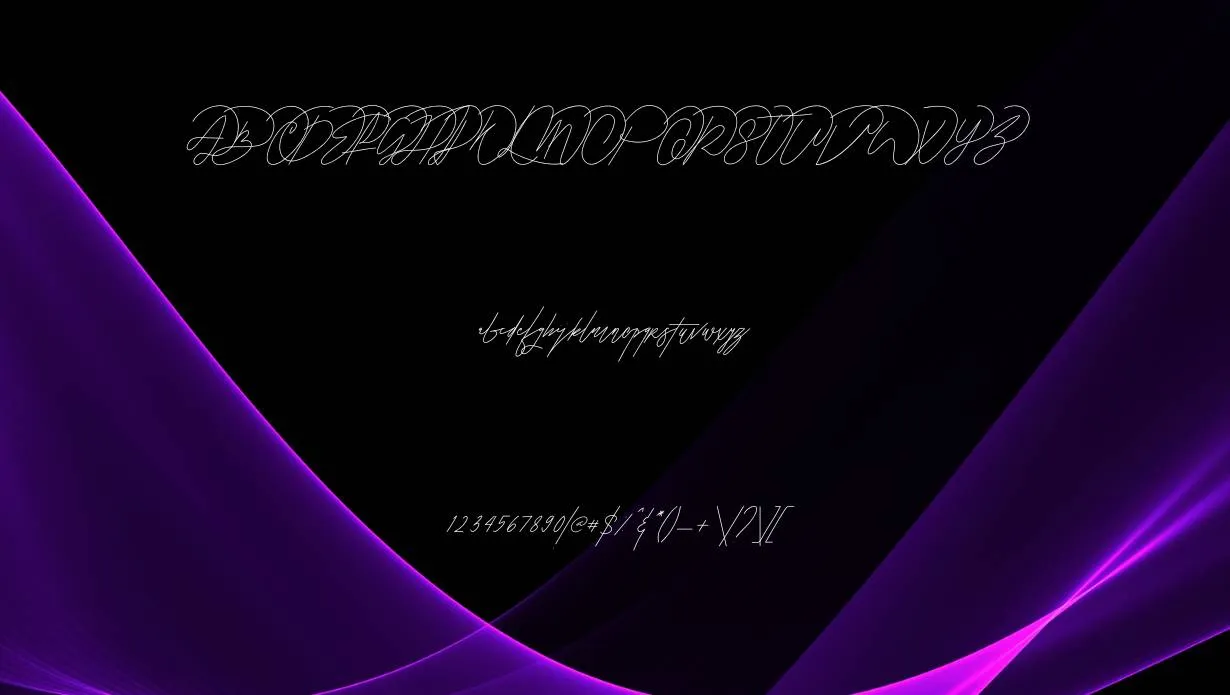
The Walrus Signature font possesses a distinctively personal and handwritten feel. Often utilized in signatures, branding, or projects that require an individualistic touch, this font adds a unique and personal element to designs.
Its artistic and expressive appearance sets it apart, giving a sense of individuality and character to the text, allowing it to stand out amidst standard typefaces. The typeface family’s broad range of language support makes it an excellent companion for decorative fonts such as gomawo font, resulting in a harmonious and visually appealing combination.